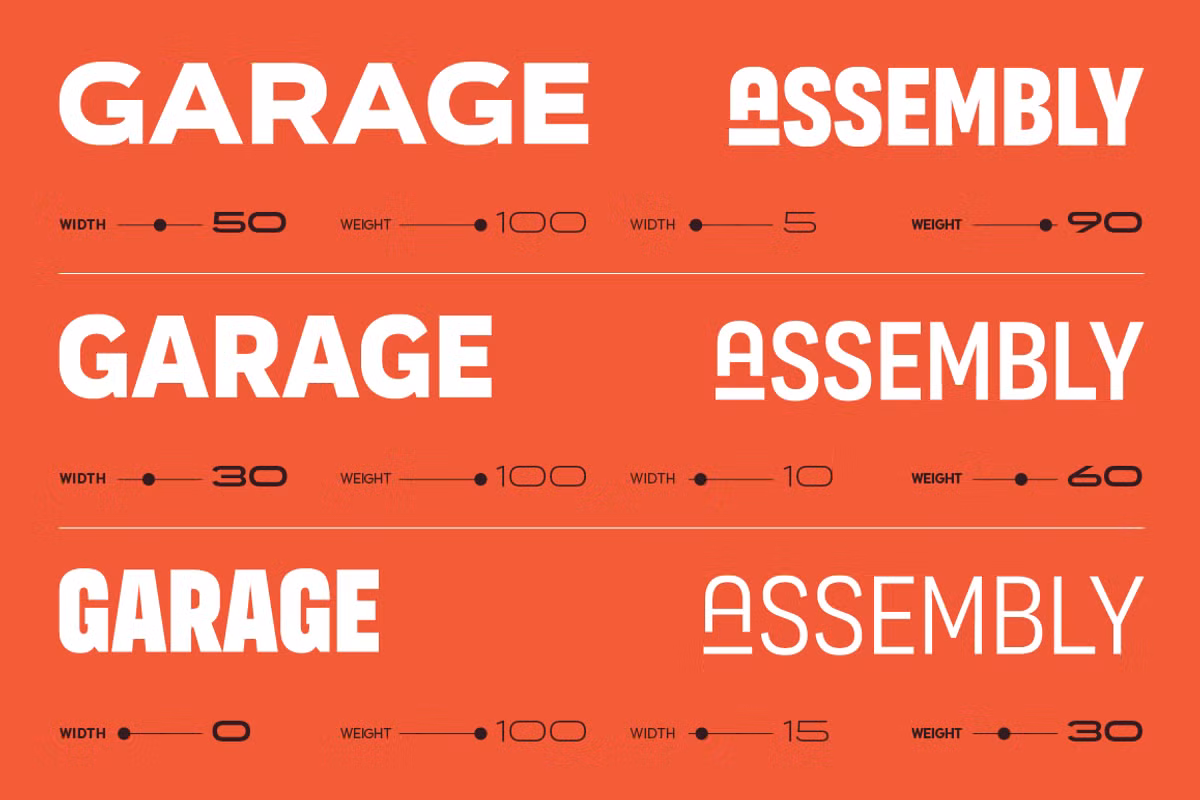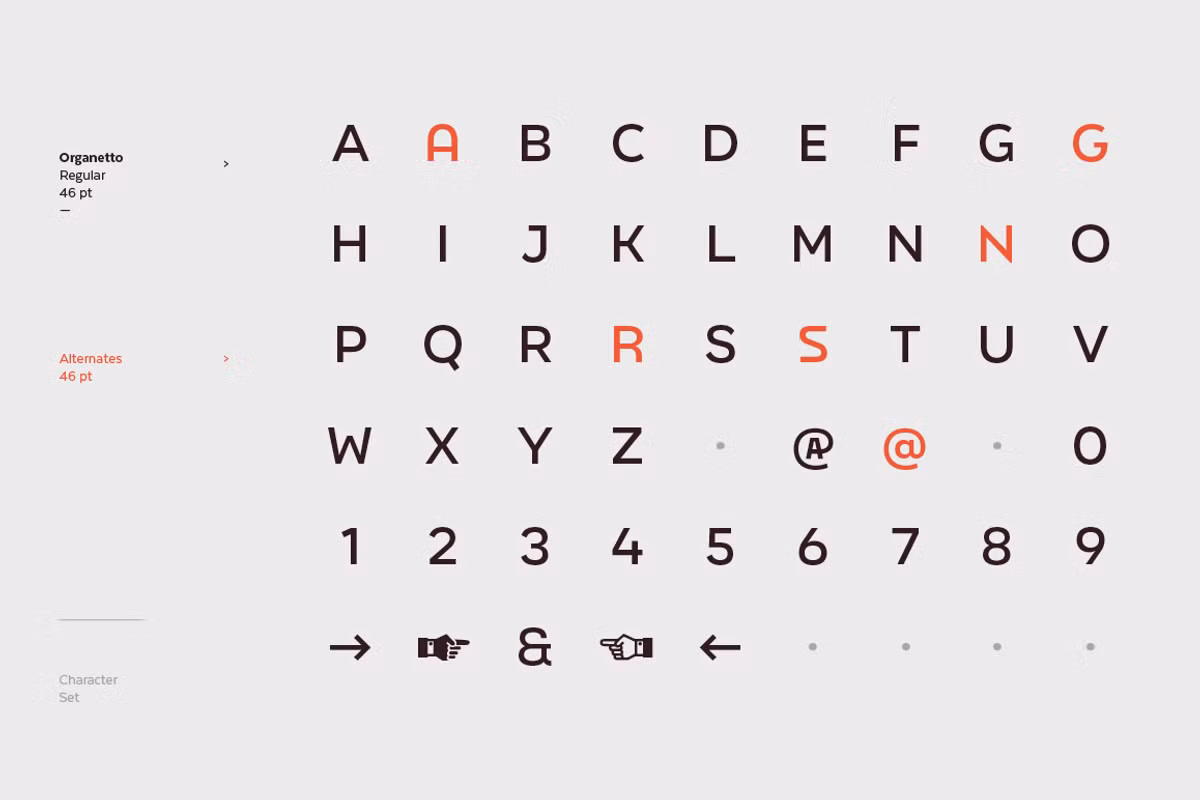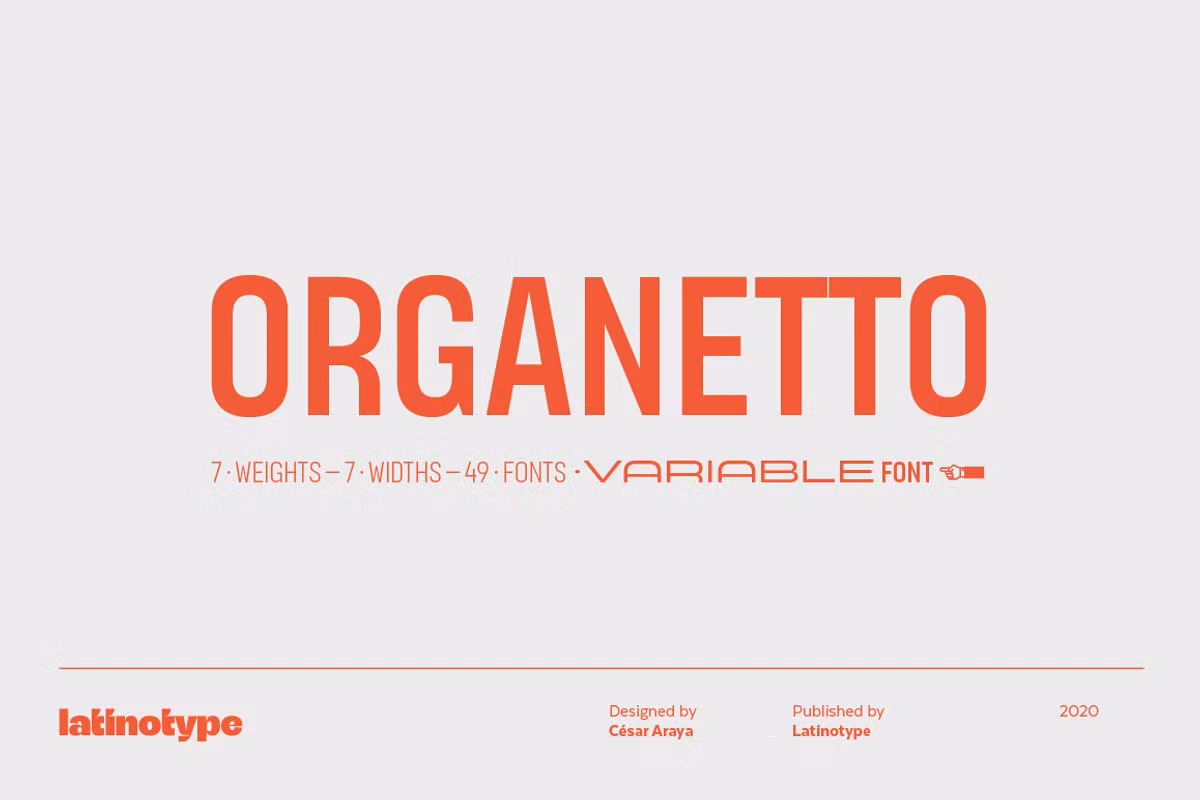
Organetto Font
Organetto Sans Font Family is a geometric inspired by the Art Deco poster but with the features of a modern digital font. Such added benefits as multiple width options and geometric features that include alternate characters makes Organetto the best geometric font style to suit any design requirements of any design project.
Some of the specialties that are best suited for Organetto if used in the right way include graphic artists particularly for arts directors who develop words, logos, wordmarks, short texts, or any other similar projects.
Organetto Sans Serif Font Family